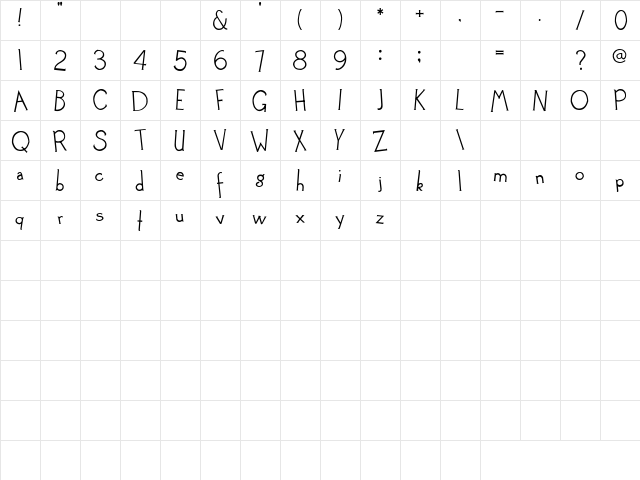
2Peas Wavy Gravy Regular
Design Context for 2Peas Wavy Gravy Typeface
2Peas Wavy Gravy takes a measured approach to typography — its balanced proportions and neutral character make it a reliable workhorse for both digital and print work.